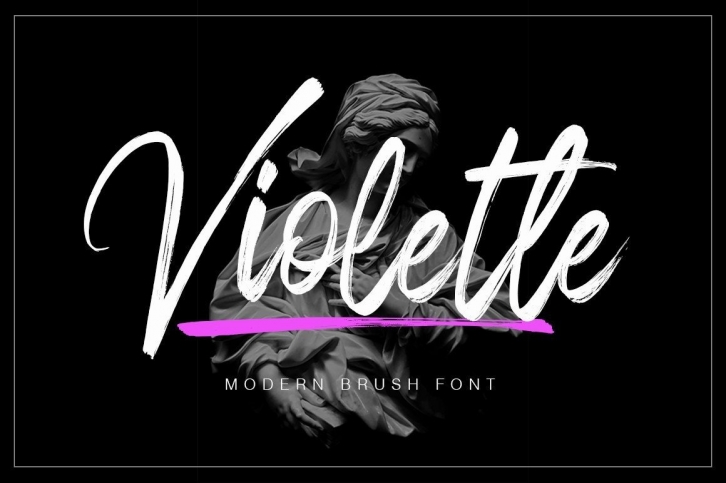
Violette is a handwritten font with quick dry strokes and a signature style. Perfect for branding projects, home-ware designs, product packaging, or simply as a stylish text overlay to any background image or posters.